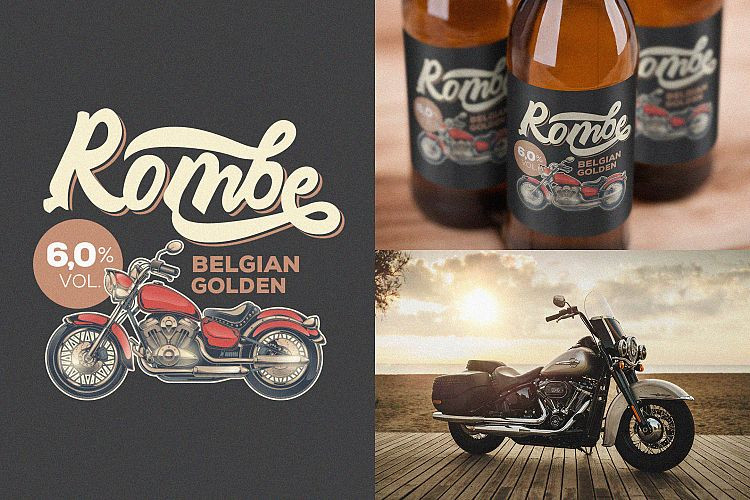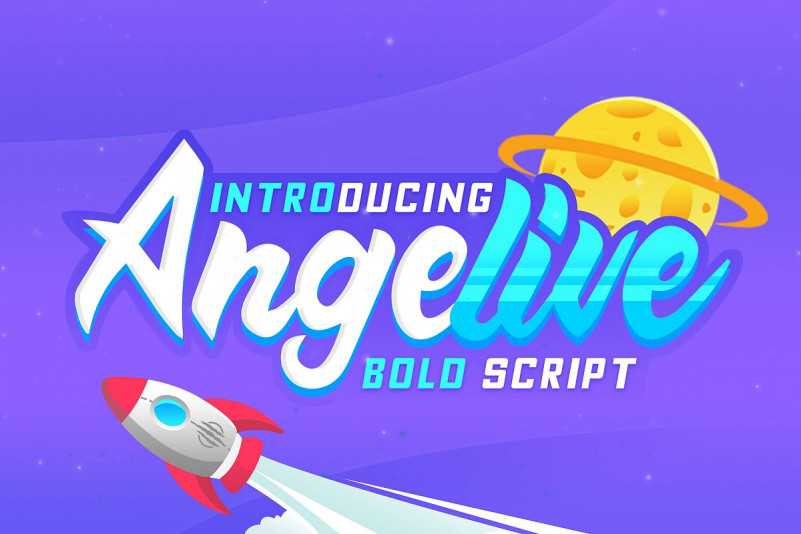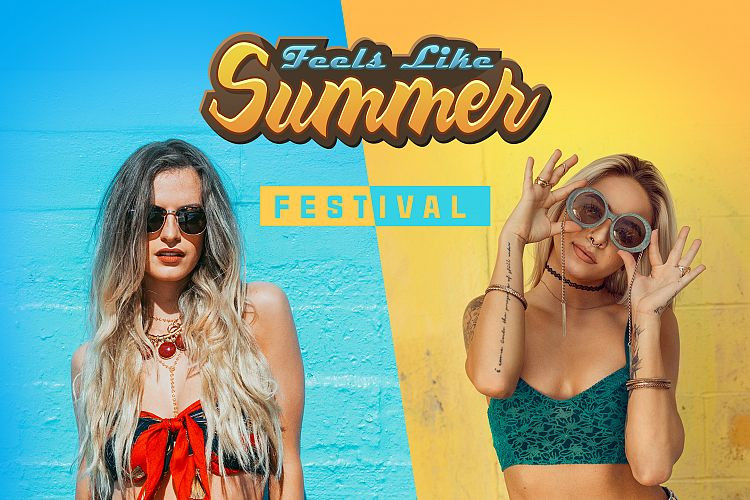
Angelive Font
Introducing the premium quality font, Angelive Bold Script.
Angelive is a beautiful bold script font with a combination of alternate, ligature, and swash that will create a captivating typography.
This font very suitable for logos, business cards, writing text, apparel design, quotes typography, and your other design needs.